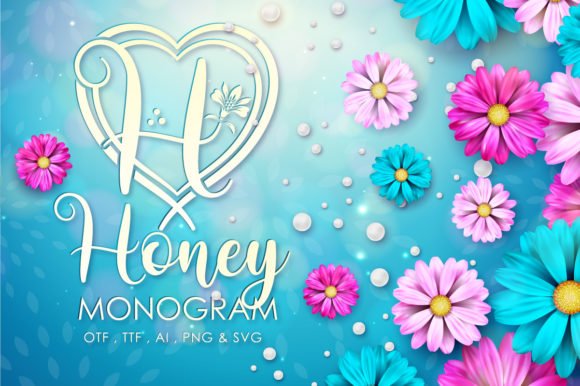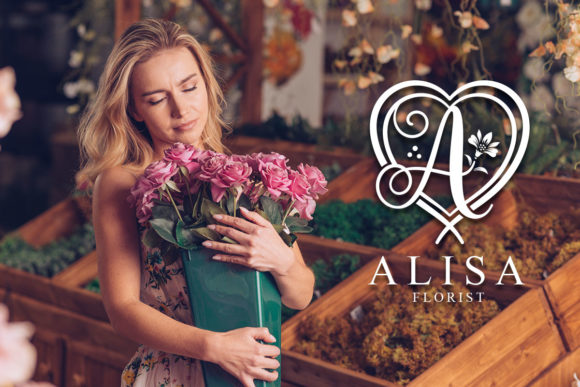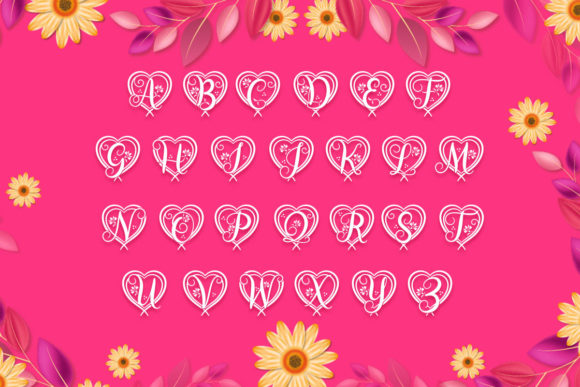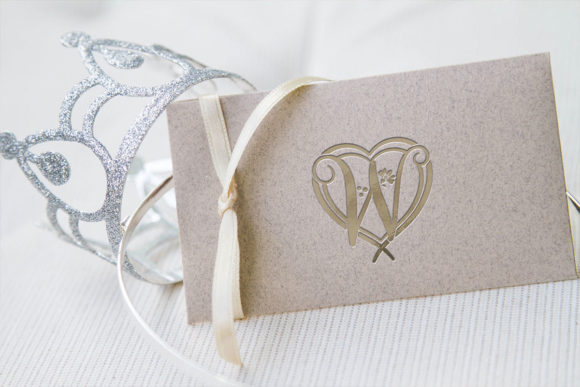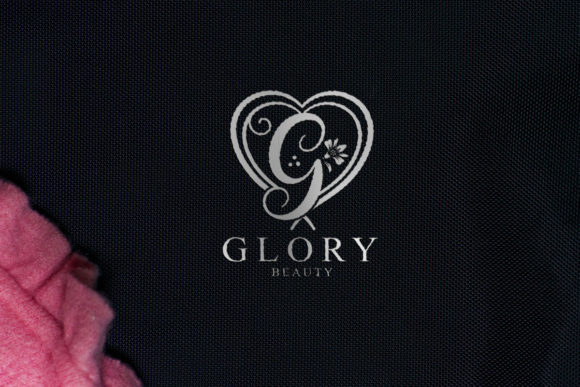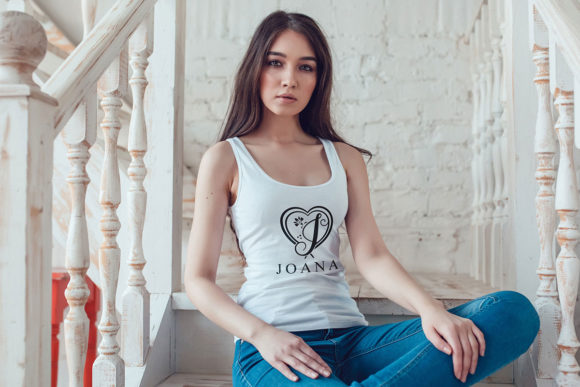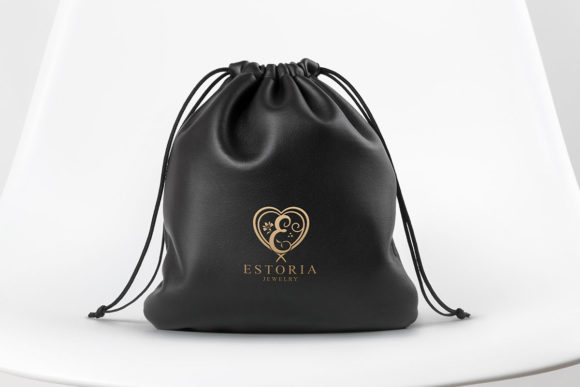
Creating a Personal Touch: The Beauty of Honey Monogram Font
Have you ever been rummaging through your grandmother’s attic, uncovering a treasure trove of antique trinkets and forgotten family heirlooms? As you carefully unfold a yellowed piece of lace or a faded handkerchief, you’re suddenly transported to a bygone era of love and romance. In that moment, you know that the right font can evoke the same sense of nostalgia and whimsy in your own crafting projects.
Enter the Honey Monogram Font, a stunning decorative font that adds a touch of elegance and sophistication to any design. With its intricate details and flowing curves, this font is perfect for creating personalized wedding invitations, baby shower decorations, or even customized stationery. Whether you’re a seasoned designer or a crafty hobbyist, the Honey Monogram Font is an invaluable tool in your creative arsenal.
Honey Monogram Font Key Features
- Unique Characteristics: The Honey Monogram Font features a unique, hand-drawn design with intricate details and ornate flourishes, adding a touch of elegance to any project.
- Font Style: The font is available in both uppercase and lowercase letters, with a range of special characters and punctuation marks to enhance its usability.
Honey Monogram Font Review
I recently had the chance to work with the Honey Monogram Font, and overall, I’m impressed with its unique design. ✨ The font’s blend of modern and classic elements makes it versatile for a wide range of projects, from wedding invitations to personal branding materials.
The Honey Monogram Font features a beautiful combination of script and serif elements, creating a sophisticated look that’s sure to catch attention. ✨ The font’s elegant feel makes it perfect for high-end branding and stationery, and its modern twist ensures it won’t feel outdated anytime soon.
While the Honey Monogram Font excels in many areas, there are a few limitations to consider:
- ⚠️ The font may not be ideal for text-heavy content due to its elegant, cursive nature.
- ⚠️ Some users may find the font too ornate or over-the-top, depending on the project’s tone.
- ⚠️ The font’s size and spacing may need to be carefully adjusted to achieve the desired effect.
Overall, the Honey Monogram Font is a great choice for designers looking to add a touch of sophistication and elegance to their projects. With its unique blend of classic and modern elements, it’s sure to impress clients and customers alike.
Tips for Getting the Most Out of Honey Monogram Font
Use Honey Monogram Font for:
- Personalized gift tags and labels
- Custom branding and logos
- Special occasion graphics and designs
Experiment with different font sizes, colors, and arrangements to create unique and eye-catching designs.